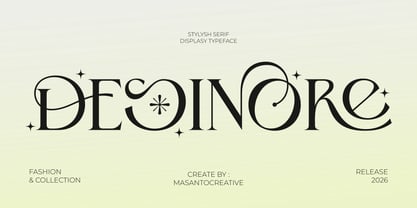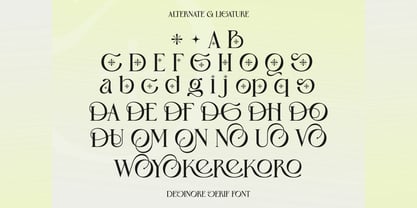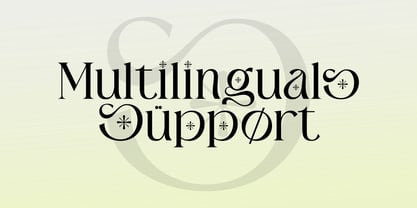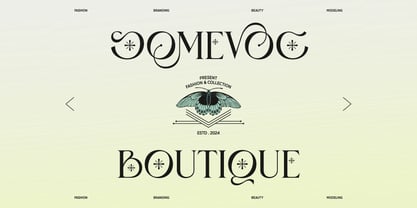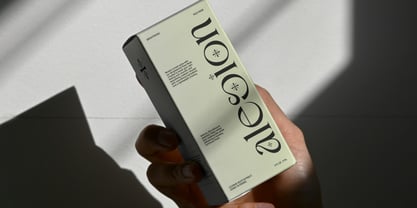
Desinore
by Kangfont Studio
The Desinore Font Family was designed by Sur Anto and published by Kangfont Studio. Desinore contains 1 styles. More about this family
Desinore is an elegant luxury serif font crafted for modern branding and sophisticated visual identities. Featuring stylish ligatures, graceful alternates, and high-contrast letterforms, this typeface blends timeless elegance with a contemporary fashion aesthetic.
Perfect for luxury branding, boutique logos, beauty packaging, editorial layouts, jewelry branding, wedding designs, social media graphics, and premium product packaging. Desinore delivers a refined and artistic look that stands out beautifully in both print and digital projects.
Designers: Sur Anto
Foundry: Kangfont Studio